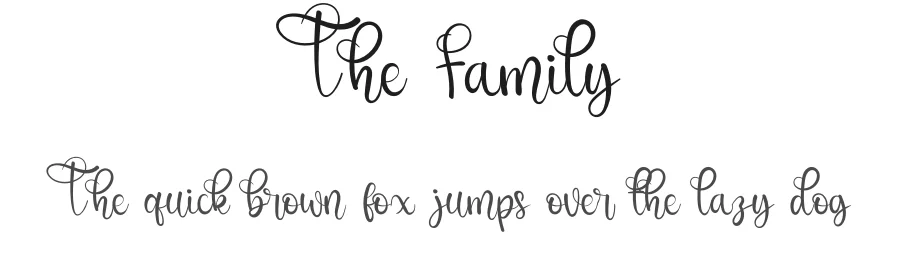
About Blessed Valentine Font
this font is a romantic and festive handwritten font. Its natural and unique style makes it incredibly fitting to a large pool of designs.
Blessed Valentine Font is a script font that shines as a display or heading face. Pair it with a clean sans-serif or serif font for body text β the contrast creates a clear hierarchy while the two styles stay balanced and easy to read.